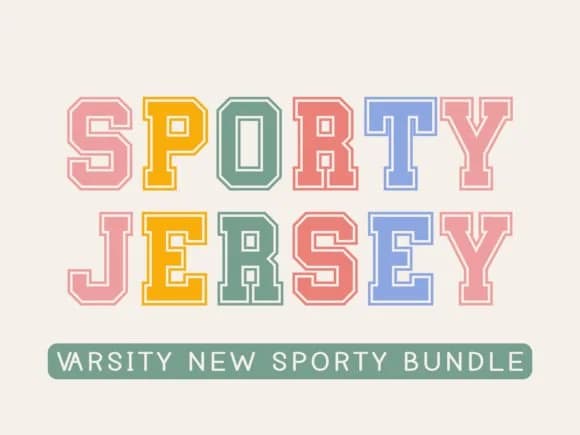
Sporty Varsity by MaxArt is a bold slab-serif display font rooted in vintage college lettering and athletic design traditions. The geometric block construction and confident weight give it an authentic athletic presence without the dated feel of many sports typefaces. This font captures the essence of school spirit and team pride, rendered in letterforms that work as hard as the athletes they represent.
The font excels on vintage sports merchandise, letterman jacket designs, and retro baseball and football posters celebrating athletic heritage. Team roster graphics and athletic event signage benefit from its strong, no-nonsense visual impact. Gym and sports bar branding particularly suits this typeface, where you need bold letters that command attention without apology. The straightforward construction maintains crisp readability at large display sizes and when letters are spaced tightly for graphic impact. Block-like proportions and consistent stroke weight make it reliable across a range of applications, from digital mockups to print and merchandise.
School spirit merchandise and authentic sports-themed packaging for athletic brands both deserve what this font brings to the table. Built to perform from concept through production, Sporty Varsity carries its athletic heritage into every design it shapes. Find it on Creative Fabrica and start building with real punch.
Sporty Varsity Font is a slab serif font that shines as a display or heading face. Pair it with a clean sans-serif or serif font for body text β the contrast creates a clear hierarchy while the two styles stay balanced and easy to read.
Sporty Varsity Font
by MaxArt